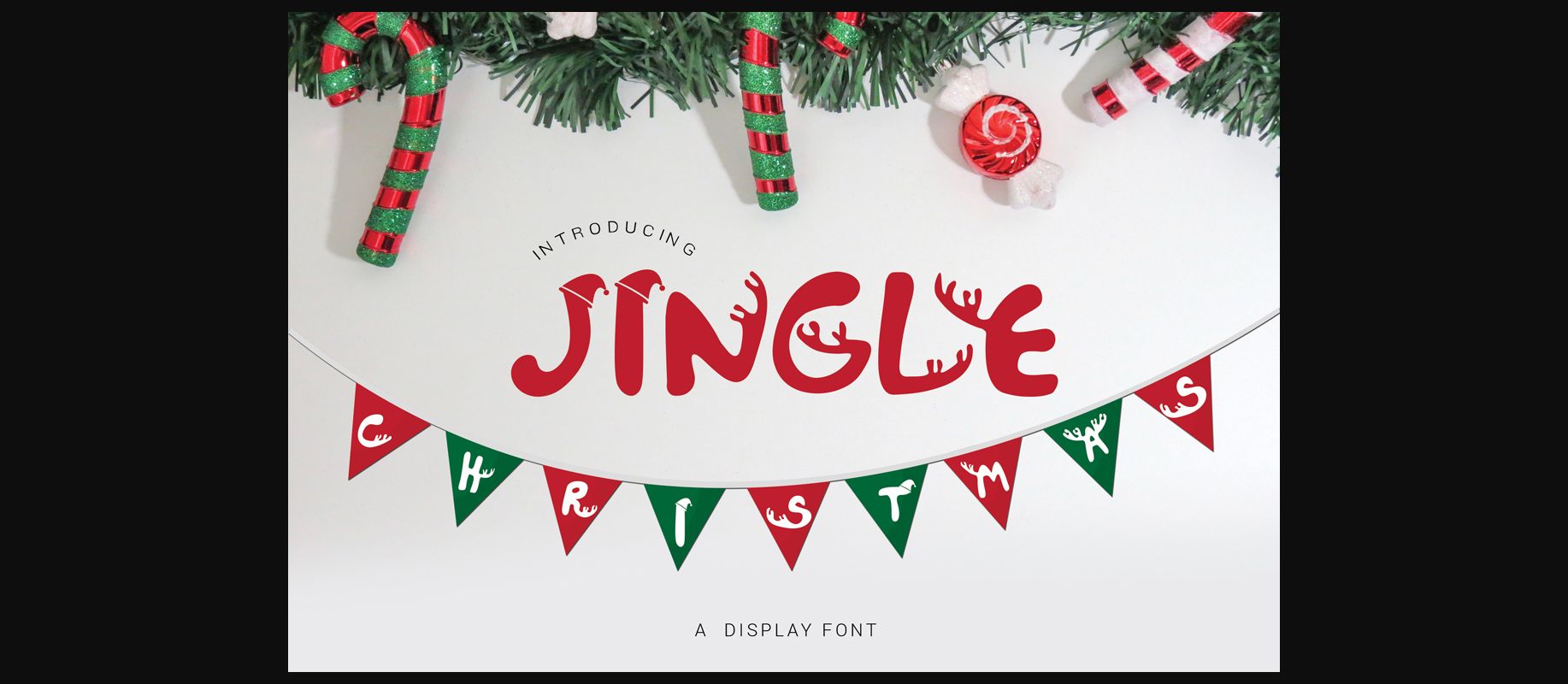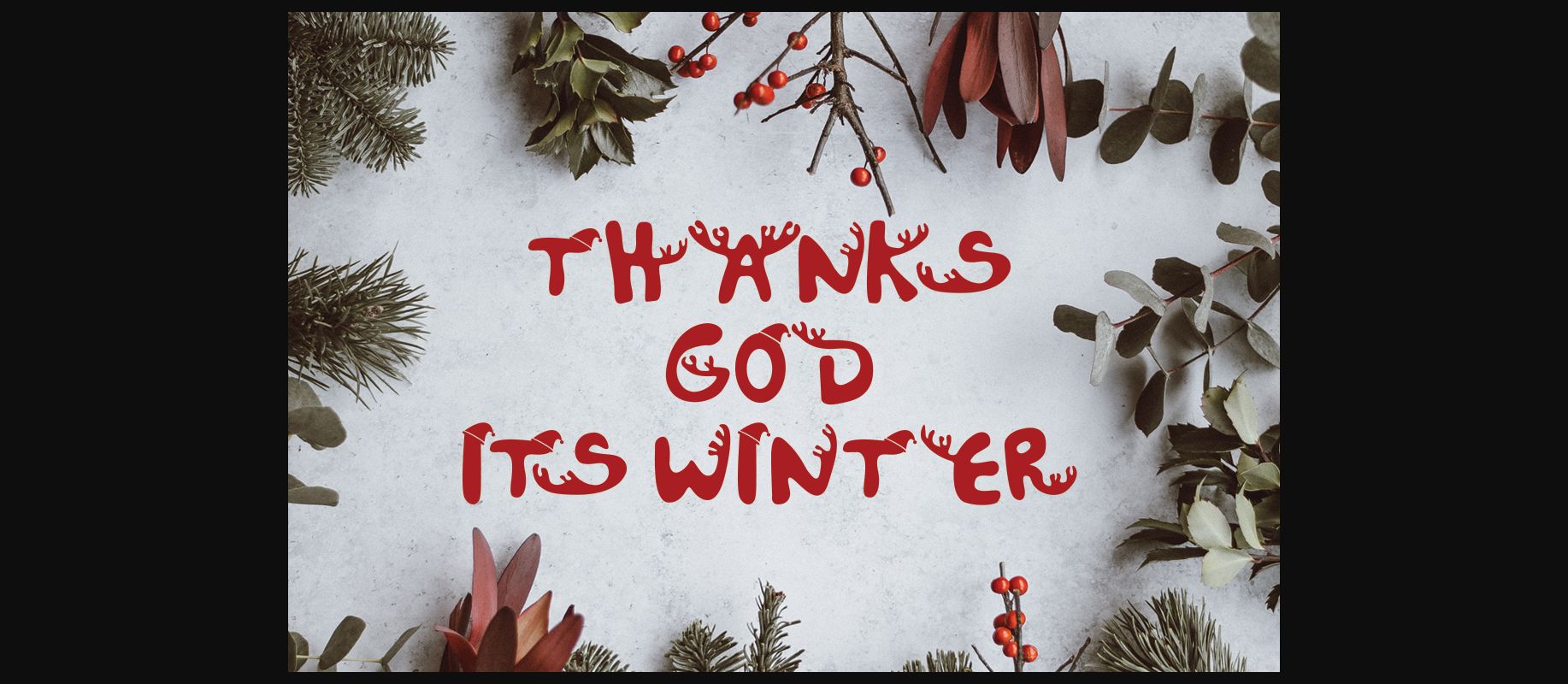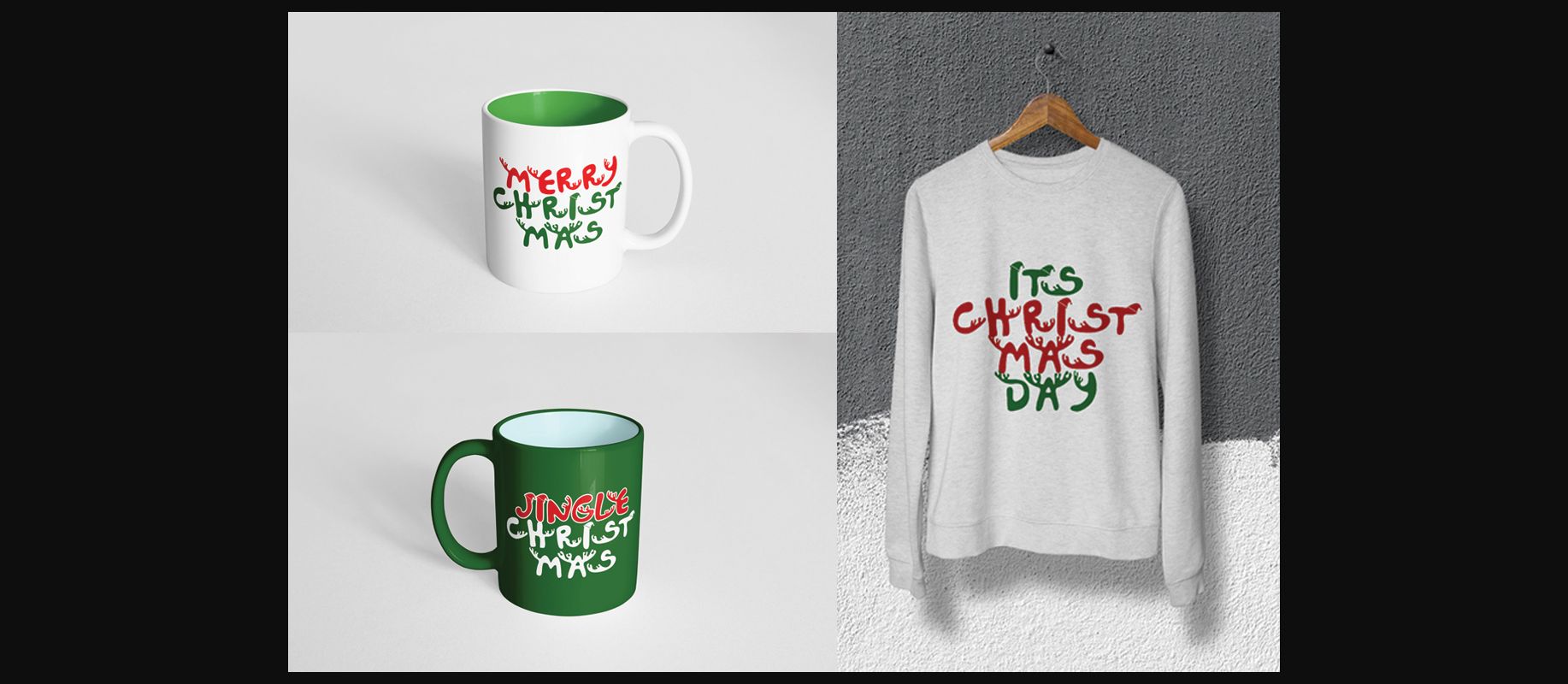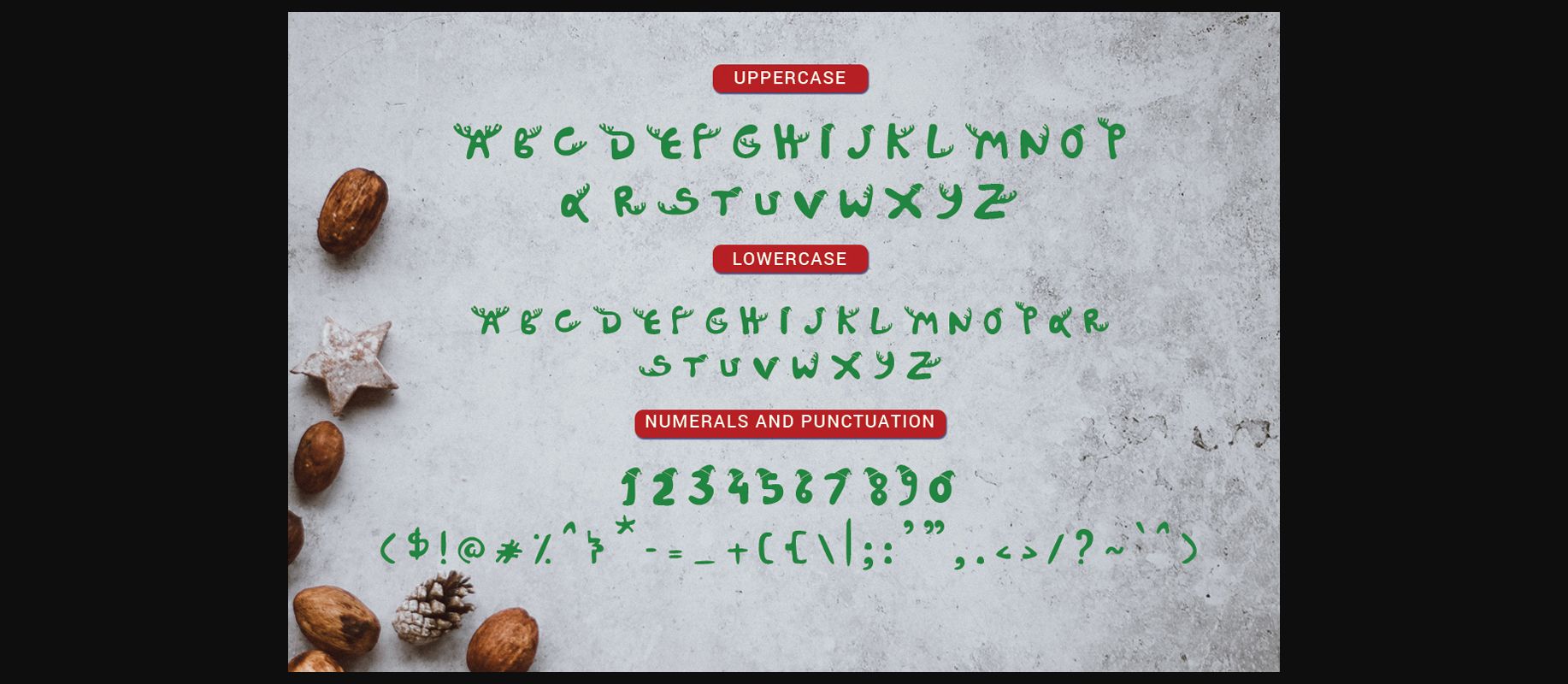
Jingle Christmas Font
About Jingle Christmas Font
Jingle Christmas is a fun decorative font, featuring sweet little antlers. It has a festive and wintery spirit and is the ideal choice for a wide range of related designs. Add it confidently to your projects, and you won’t be disappointed.